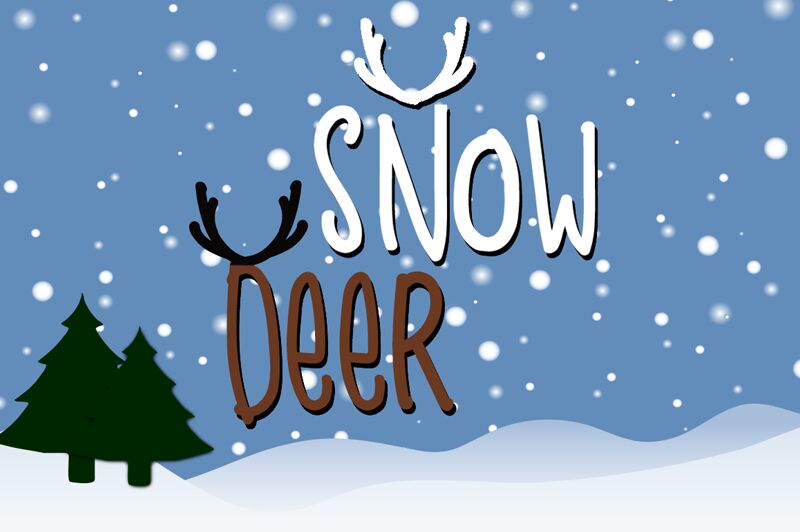
Snow Deer
Snow Deer is the perfect font for all your Christmas-themed projects. Designed by Dm Letter Studio's Dimas Prasetyo, this decorative semi-light typeface features extra-condensed width and deer horns, making it a unique addition to any design project. From holiday greeting cards to festive social media posts, Snow Deer adds a touch of whimsy and cheer to your designs. The elegant yet playful style of this font is suitable for various projects including winter-themed invitations, gift tags, packaging designs, and more. Let Snow Deer bring joy and warmth to your creative endeavors this holiday season!